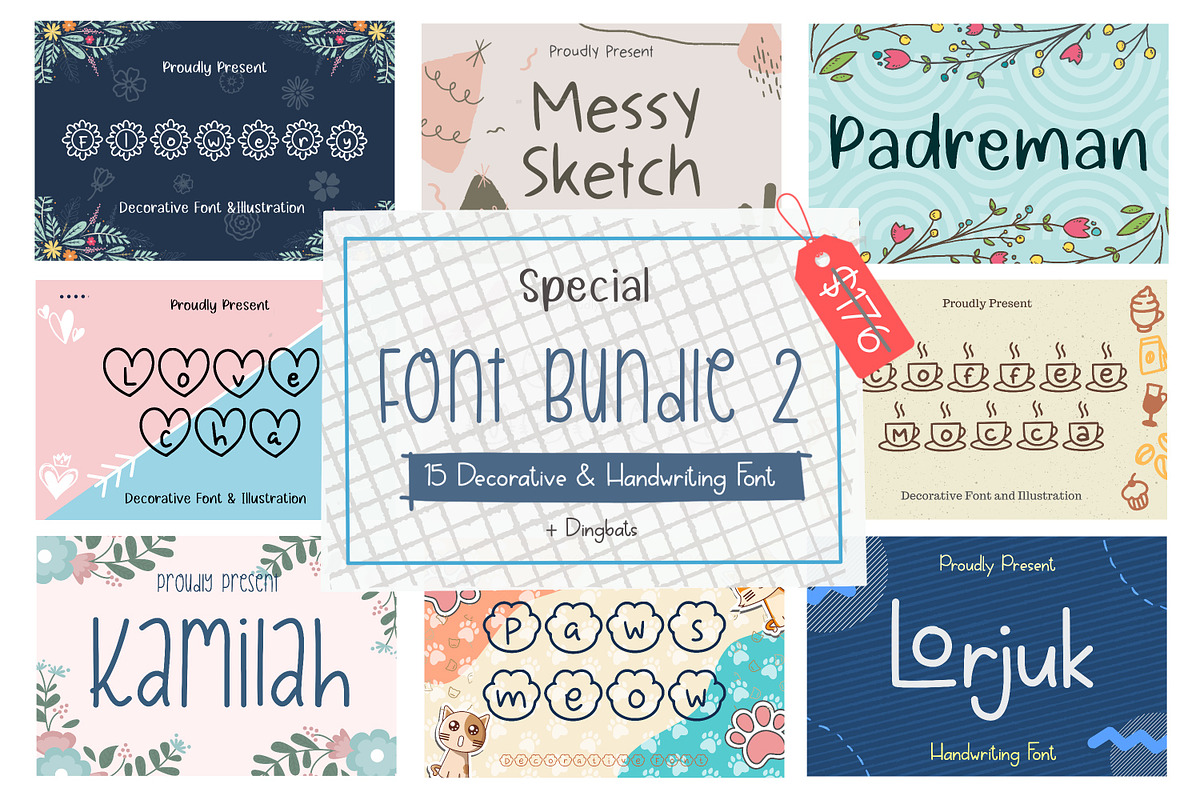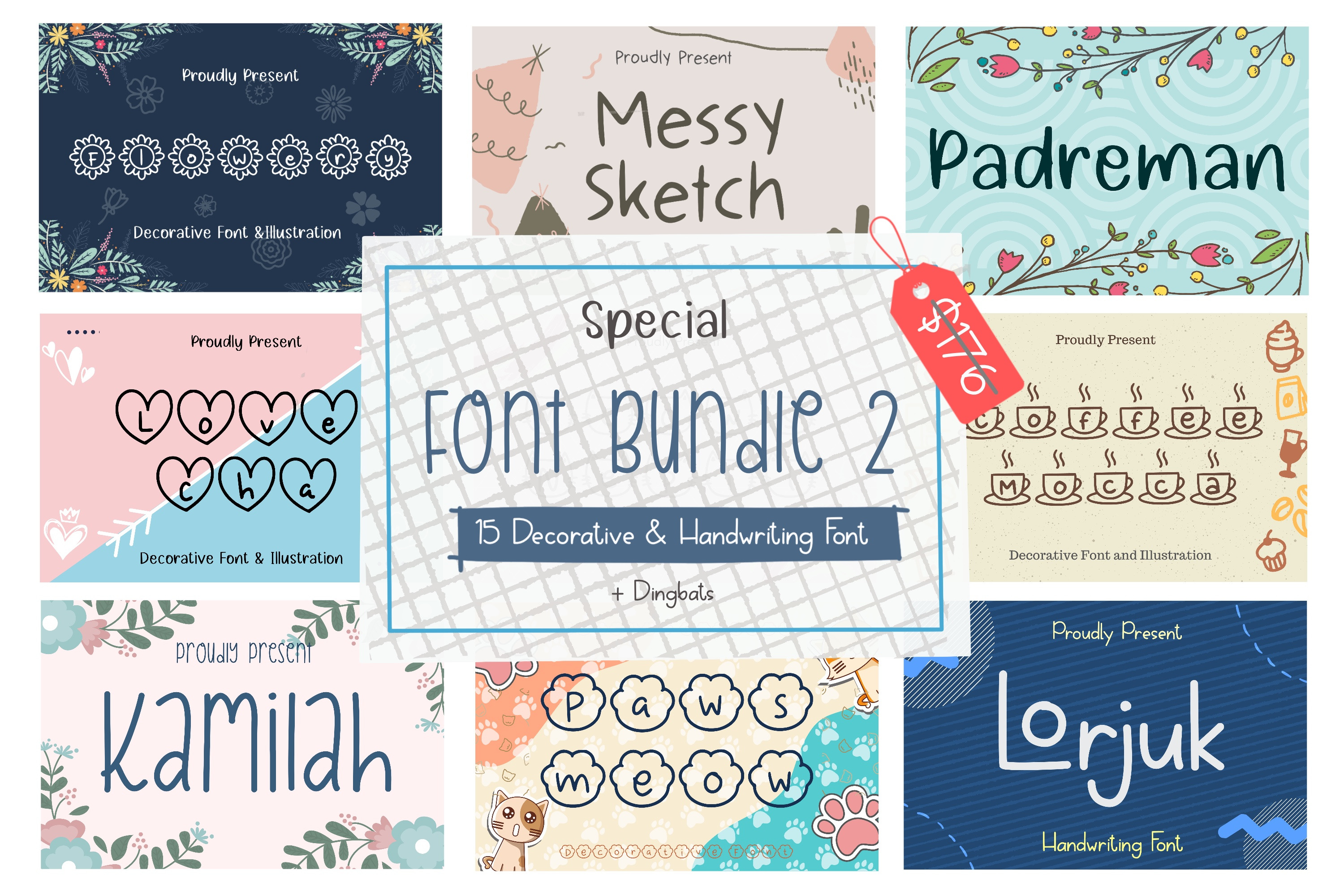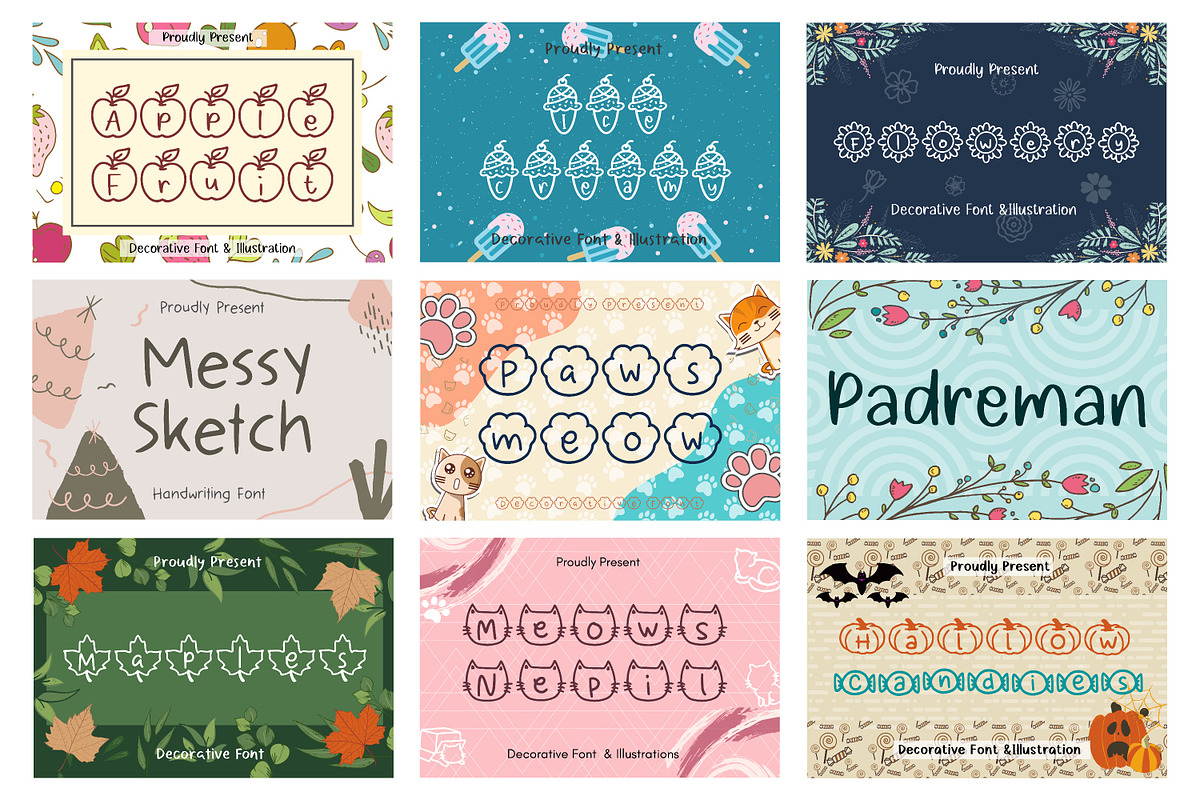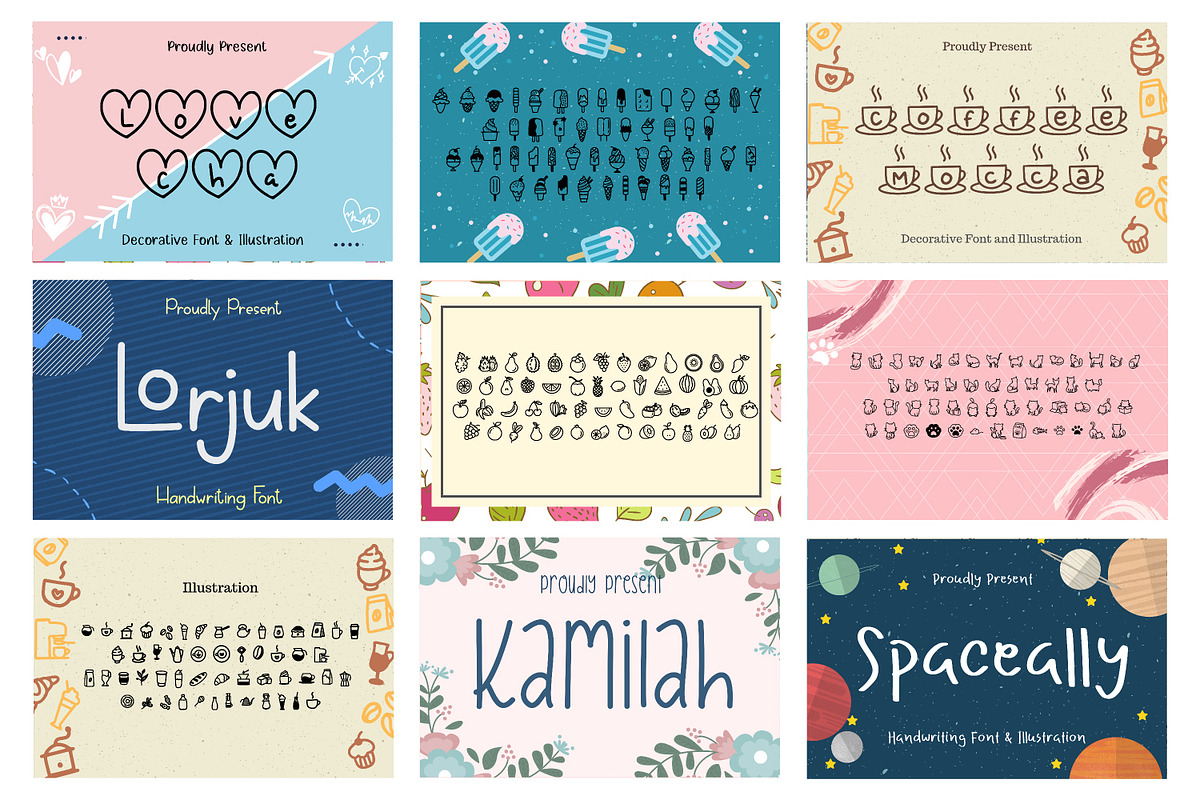
Special Font Bundle
This amazing bundle gathers 15 fonts. Decorative, Handwriting, and Dingbats. Get these incredible and authentic fonts for only $12 and save more than $176!
These fonts are ideal for crafting, branding, wedding invitations and blogs. Also for logos, book covers, stationery, magazines and more.